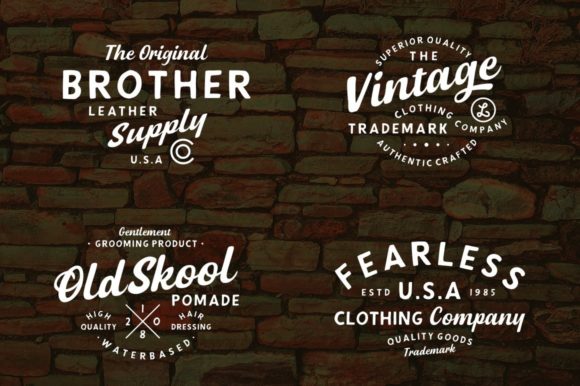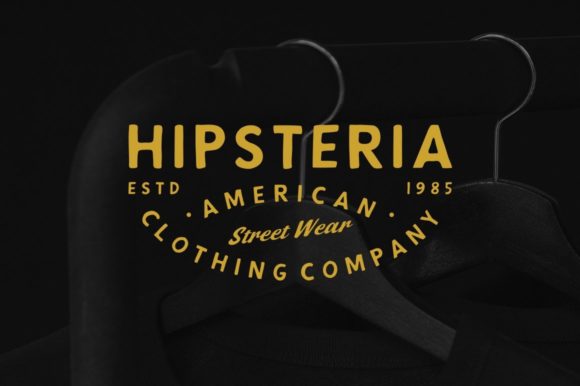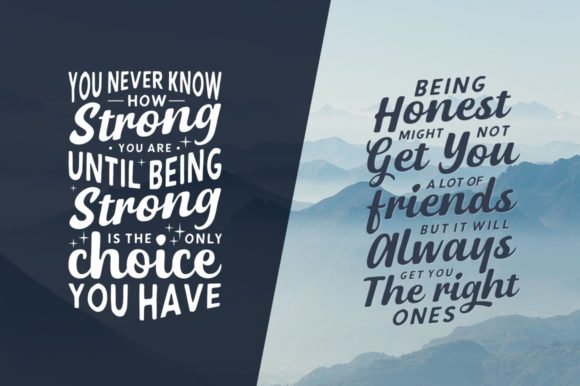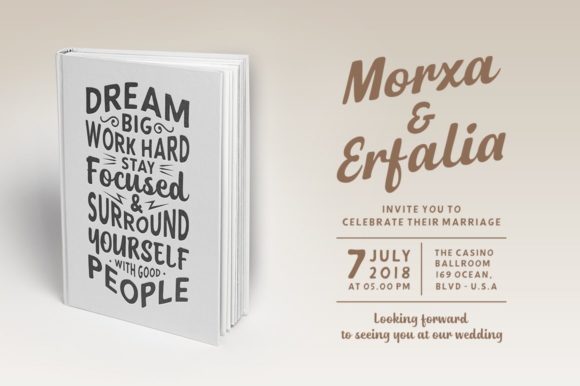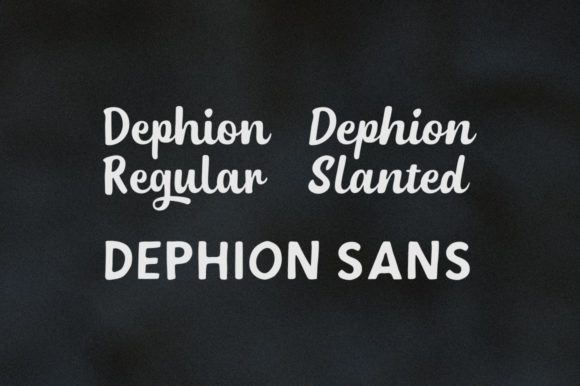
Dephion Font
About Dephion Font
Handcrafted items possess an intrinsic allure as collectibles, their uniqueness rendering them far from mundane. Dephion, among our bespoke handmade fonts, endeavors to imbue a casual, organic essence reminiscent of modern calligraphy painstakingly crafted by hand. Departing from the conventional pursuit of flawlessness, Dephion embraces imperfection, its irregular contours lending it a distinct charm.
Comprising three variants—Dephion Script Regular, Slanted, and Dephion Sans—the font suite offers a diverse palette for crafting captivating designs with an air of informality. Whether employed individually or in tandem, these fonts facilitate the creation of visually engaging compositions exuding a relaxed ambiance.
With PUA encoding, Dephion grants effortless access to a plethora of captivating glyphs and ligatures, enhancing creative flexibility and enabling seamless customization. This feature ensures that every design endeavor is imbued with a touch of individuality and finesse, elevating the aesthetic appeal of the final product.
Embrace the artistry of handmade typography with Dephion and unlock a world of creative possibilities. Whether employed for branding, digital media, or print materials, this font exudes an aura of authenticity and craftsmanship, resonating with discerning audiences.
Break free from the confines of conventional design and embrace the allure of imperfection with Dephion. Let your creativity flourish as you weave unique narratives and evoke emotions through the artful arrangement of letters and shapes.
Experience the versatility and charm of Dephion, where each stroke tells a story and every curve captures the essence of human touch. Step into a realm where tradition meets innovation, and where the beauty of imperfection reigns supreme.
Elevate your designs with Dephion and witness as they transcend the ordinary, leaving an indelible impression on all who behold them. Embrace the art of handmade typography and embark on a journey of creativity and self-expression with Dephion at your side.